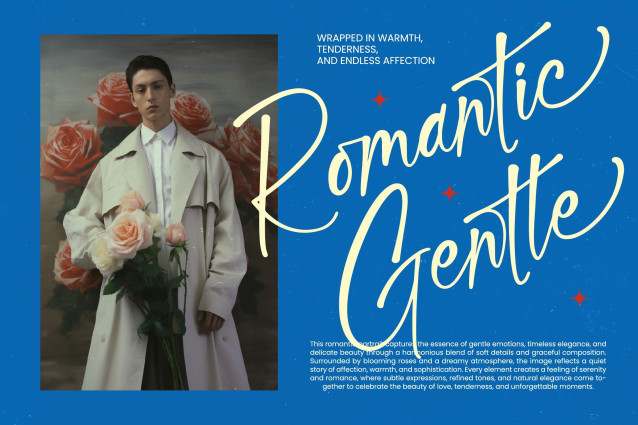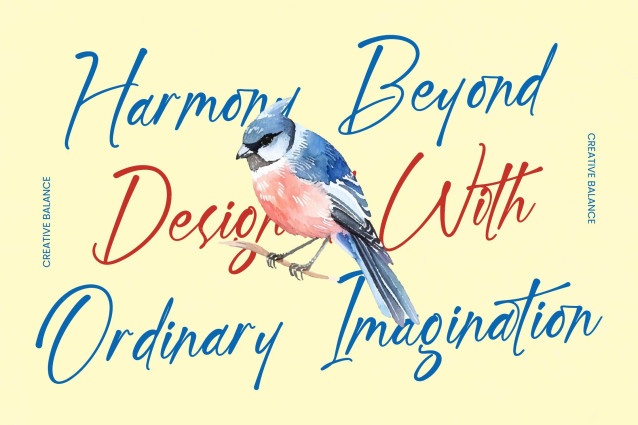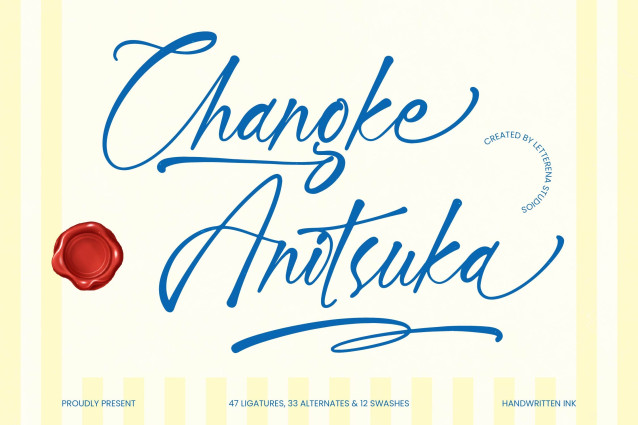
Changke Anitsuka – Handwritten Ink
Elevate your creative vision with a typeface that embodies raw elegance and artisanal craftsmanship. Changke Anitsuka – Handwritten Ink captures the fluid motion of a master’s pen, offering a sophisticated aesthetic that blends organic textures with a refined flow. Its hand-drawn authenticity and expressive ligatures create a sense of personal connection and high-end quality, making it a standout choice for designers seeking a premium signature style.
Bridge the gap between local charm and international appeal through superior typographic engineering. With its extensive multilingual support, Changke Anitsuka – Handwritten Ink adapts seamlessly across global markets, making it incredibly versatile for international projects. This globally accessible typeface ensures that your brand voice remains consistent and impactful, regardless of the linguistic landscape, providing a seamless user experience for diverse audiences.